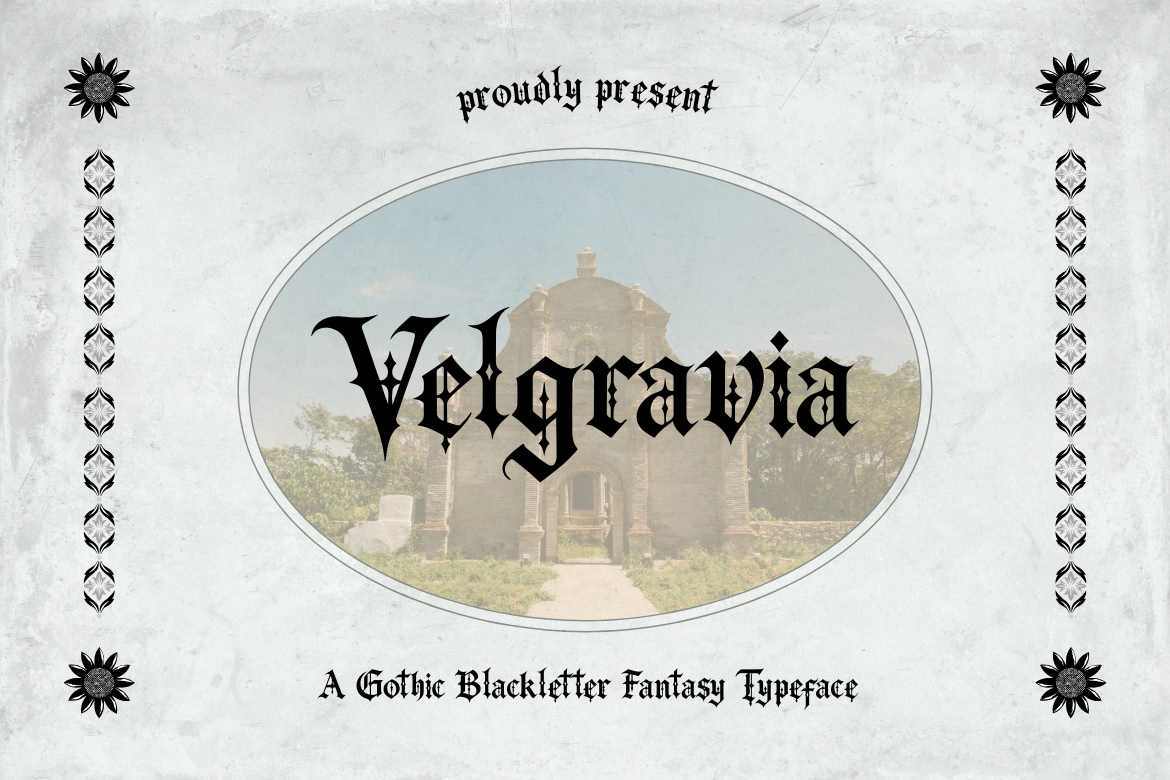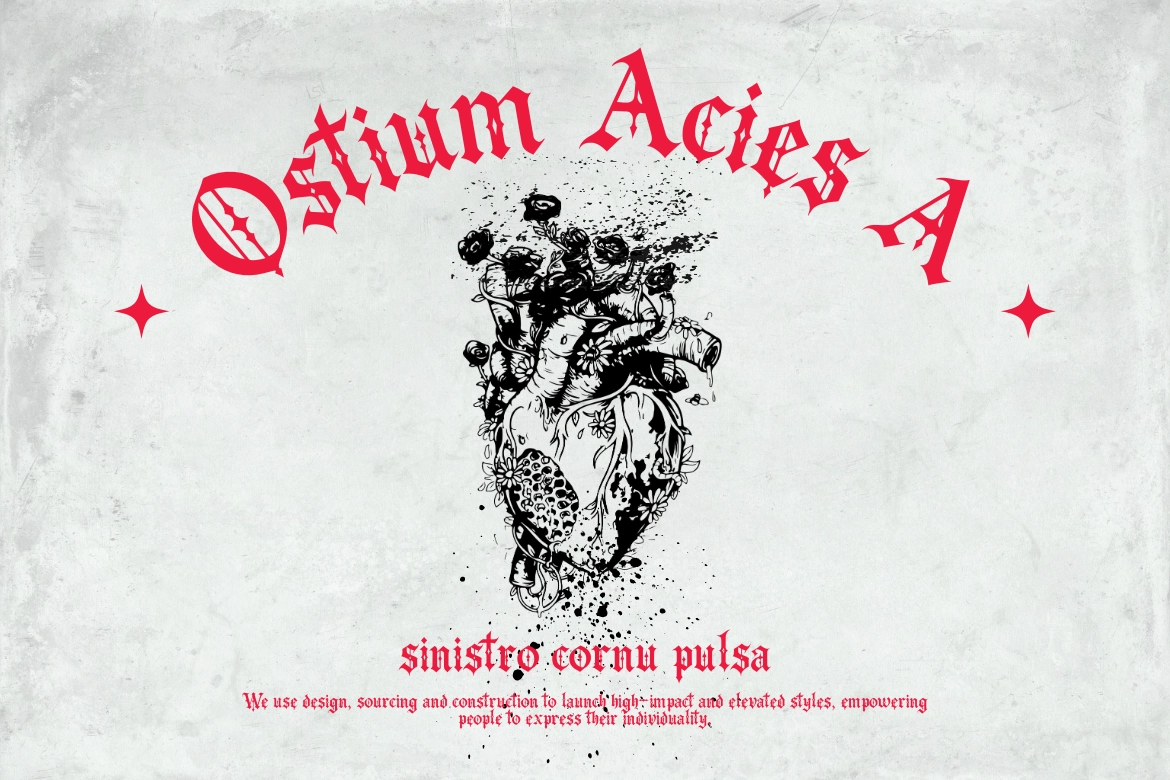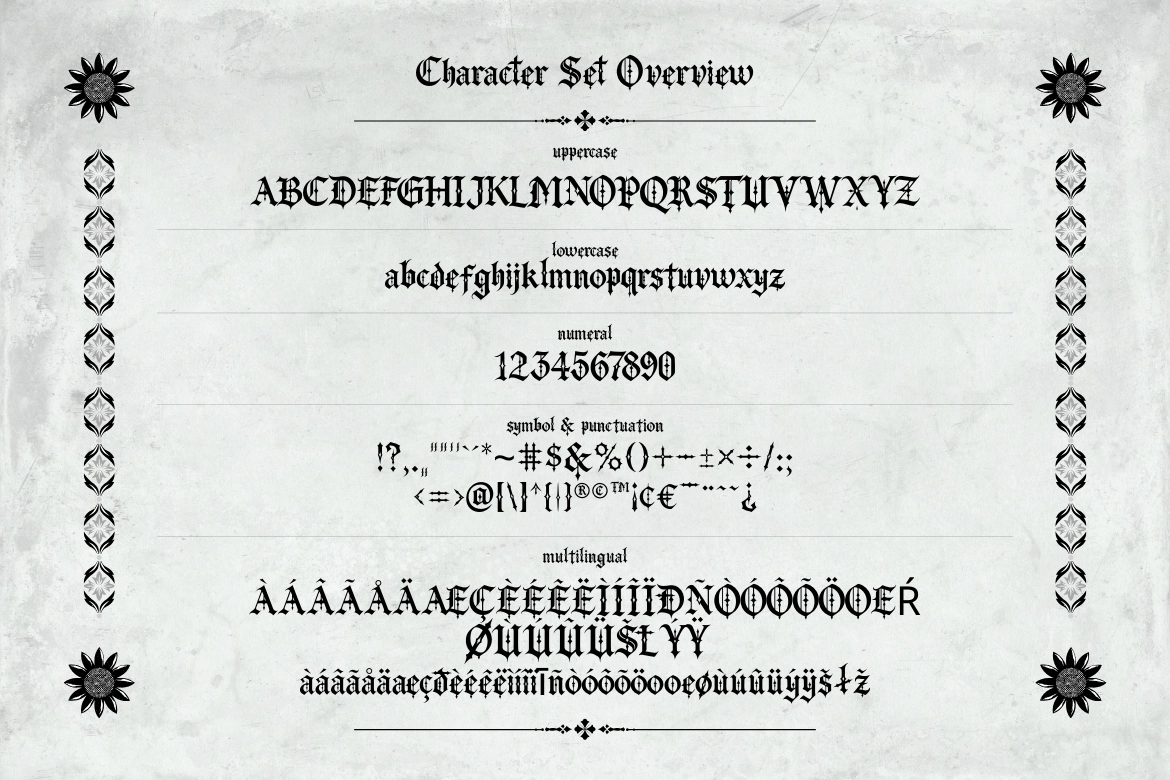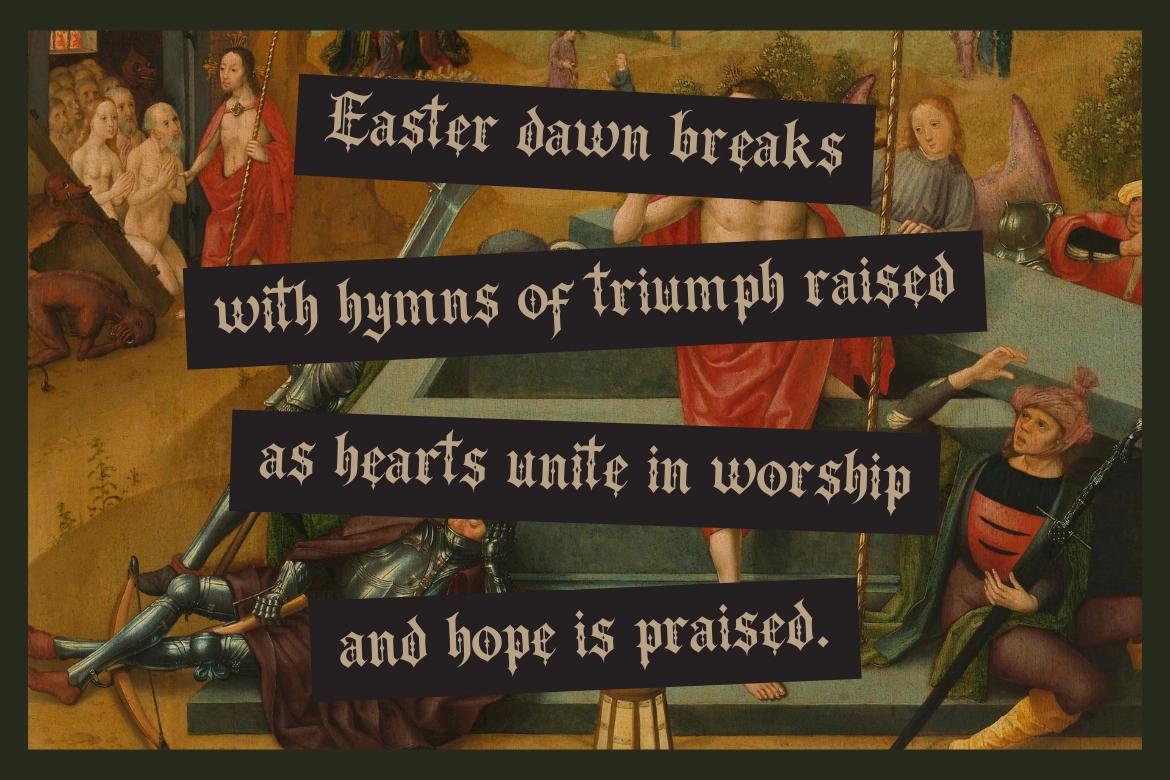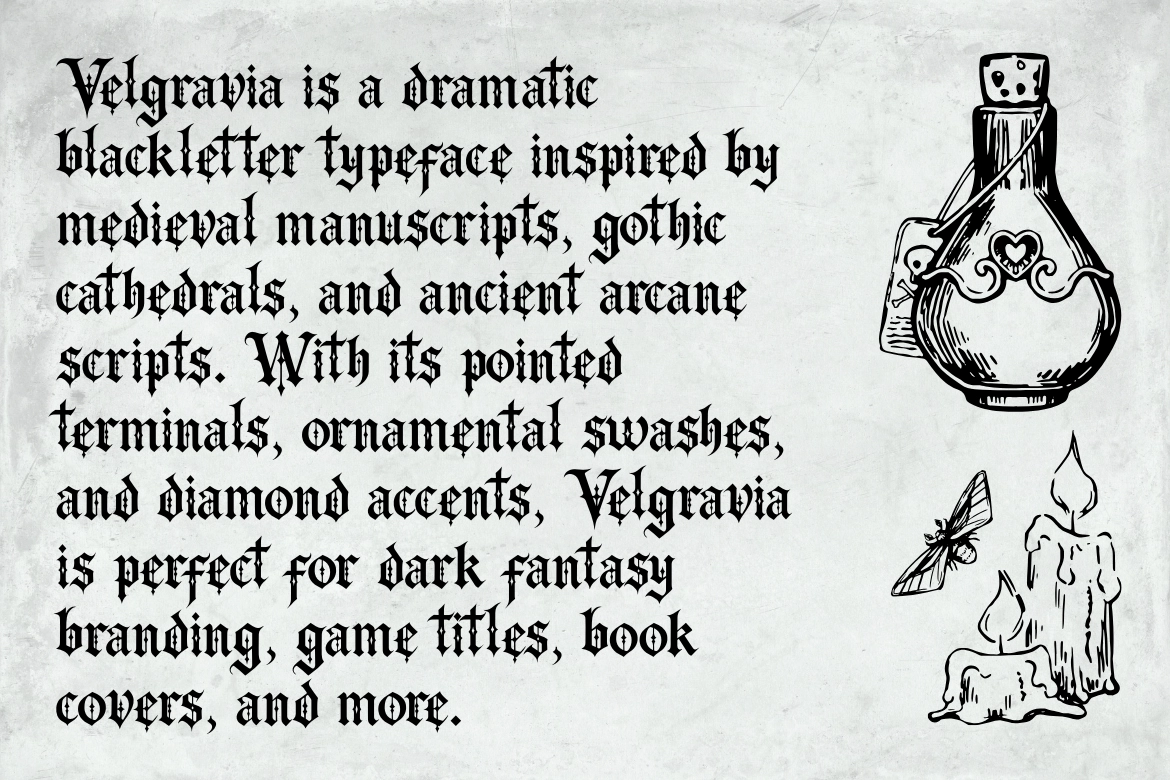
Velgravia – Gothic Blackletter Font
Velgravia - Blackletter
Step into the dark elegance of tradition with Velgravia, a bold Gothic Blackletter font that fuses medieval heritage with a modern edge.
With its sharp serifs, intricate strokes, and commanding presence, Velgravia evokes the spirit of vintage craftsmanship — perfect for designers who want to create work that feels dramatic, mysterious, and timeless.
Ideal for branding, posters, apparel, and album artwork, Velgravia stands as a statement piece — powerful, expressive, and unapologetically bold.
Perfect For
- Gothic branding & packaging
- Band & poster design
- Vintage editorial projects
- Tattoo & streetwear graphics
- Dark fantasy titles
Forge your own legacy with Velgravia — a blackletter font born from classic artistry and modern boldness.